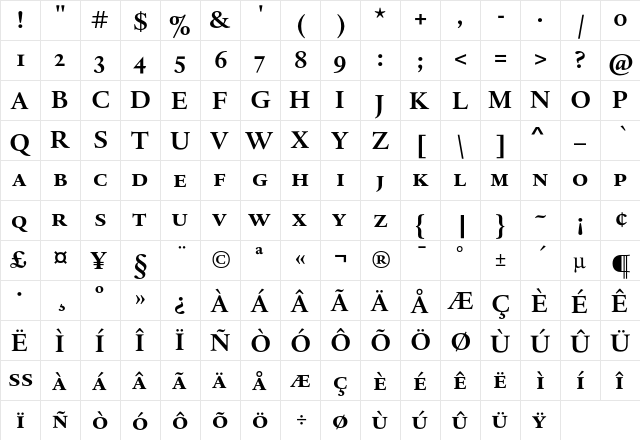
DTLHaarlemmerDCaps Bold Font Preview
DTLHaarlemmerDCaps Bold
Design Context for DTLHaarlemmerDCaps Typeface
DTLHaarlemmerDCaps is a composed and adaptable typeface that performs quietly and consistently across a wide range of design contexts. The heavy weight commands attention and anchors typographic hierarchies.
Pro Tip: Use DTLHaarlemmerDCaps in both headline and body roles to test its range before committing to a single application.